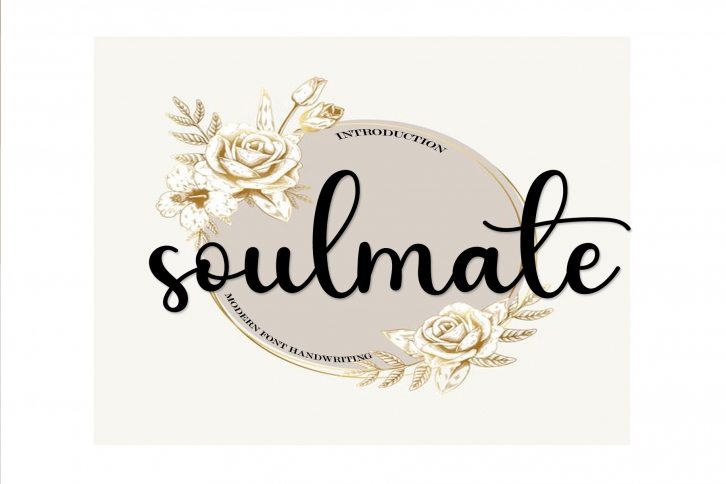
Soulmate is a classic and simple handwritten script, created in a random and free style.
It is suitable for logotype, headline font, in corporate identity, brand identity, apparel industry, poster, music, movie, game, magazine, book, comic, cartoon, YouTube, Instagram, website, or any of your creative design projects